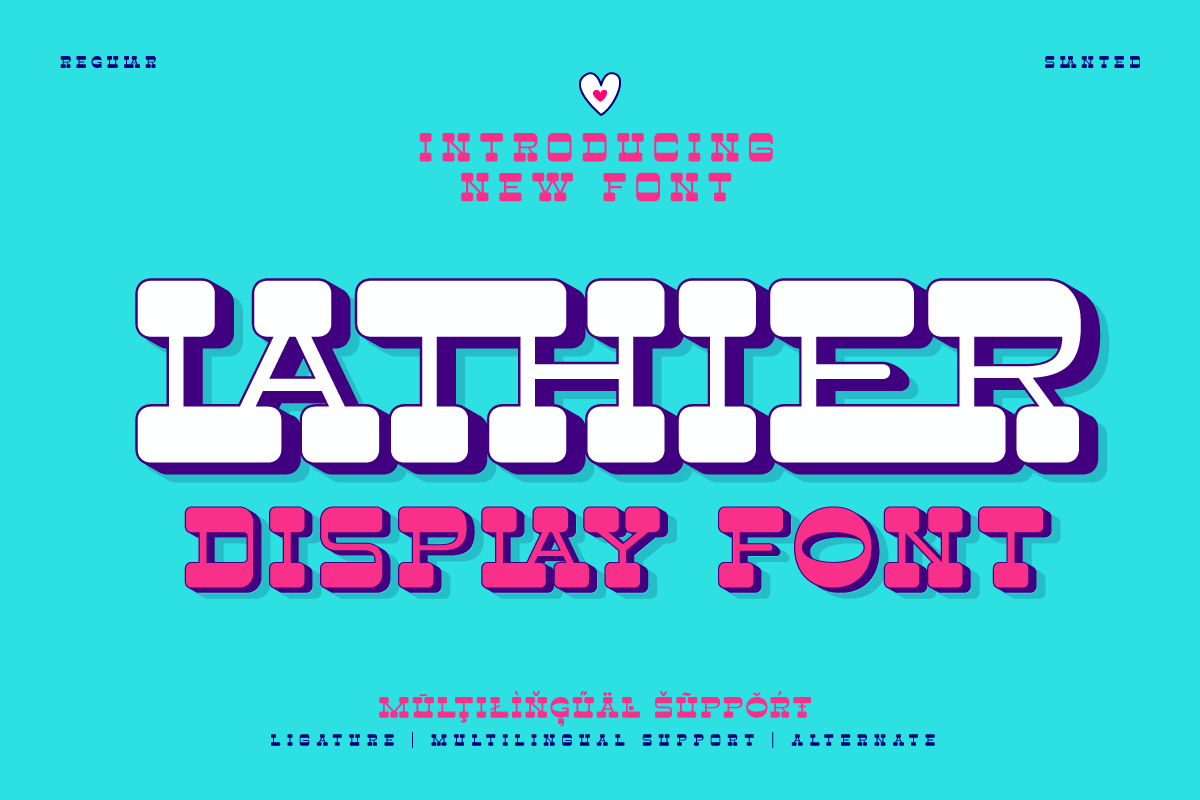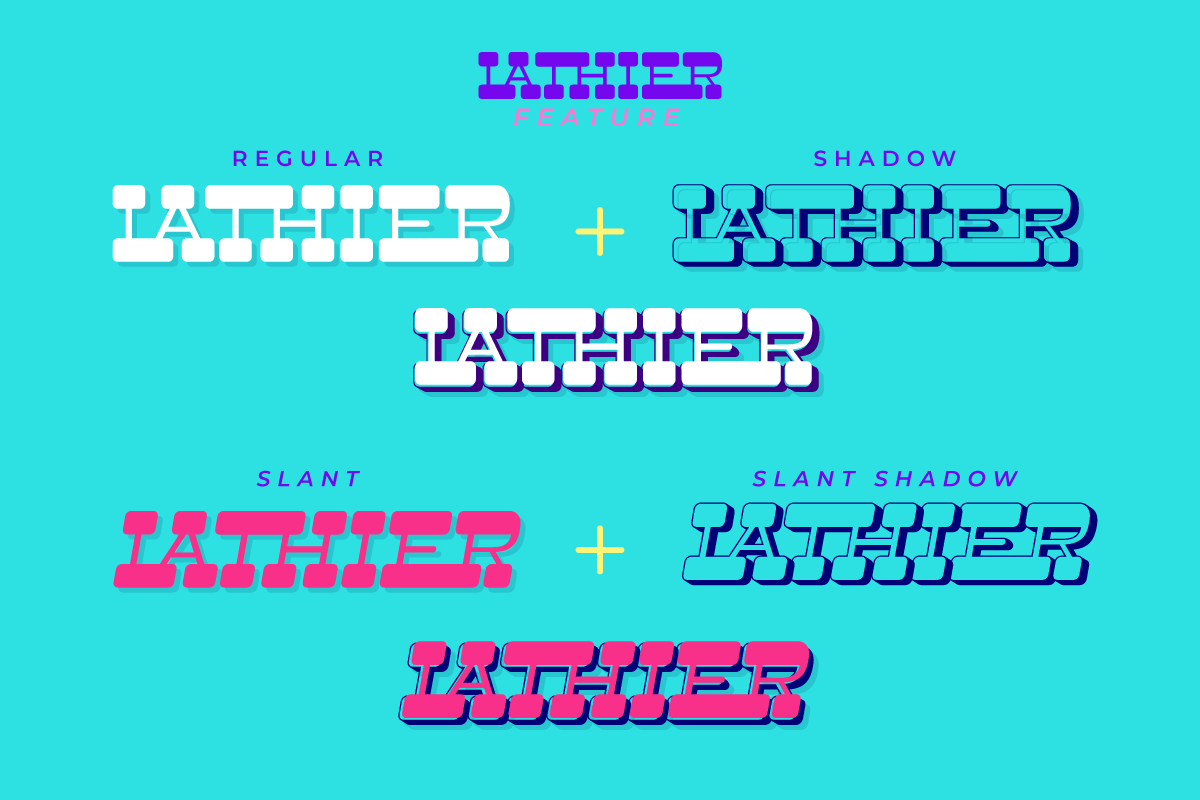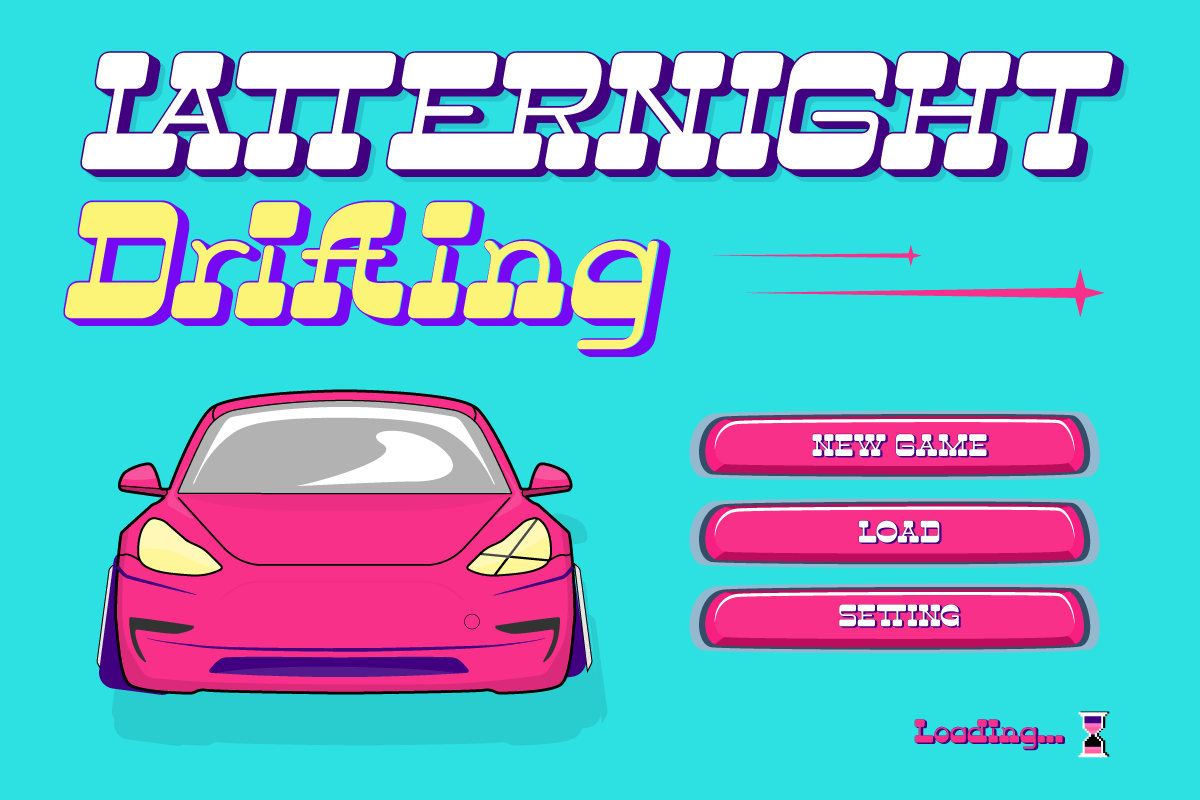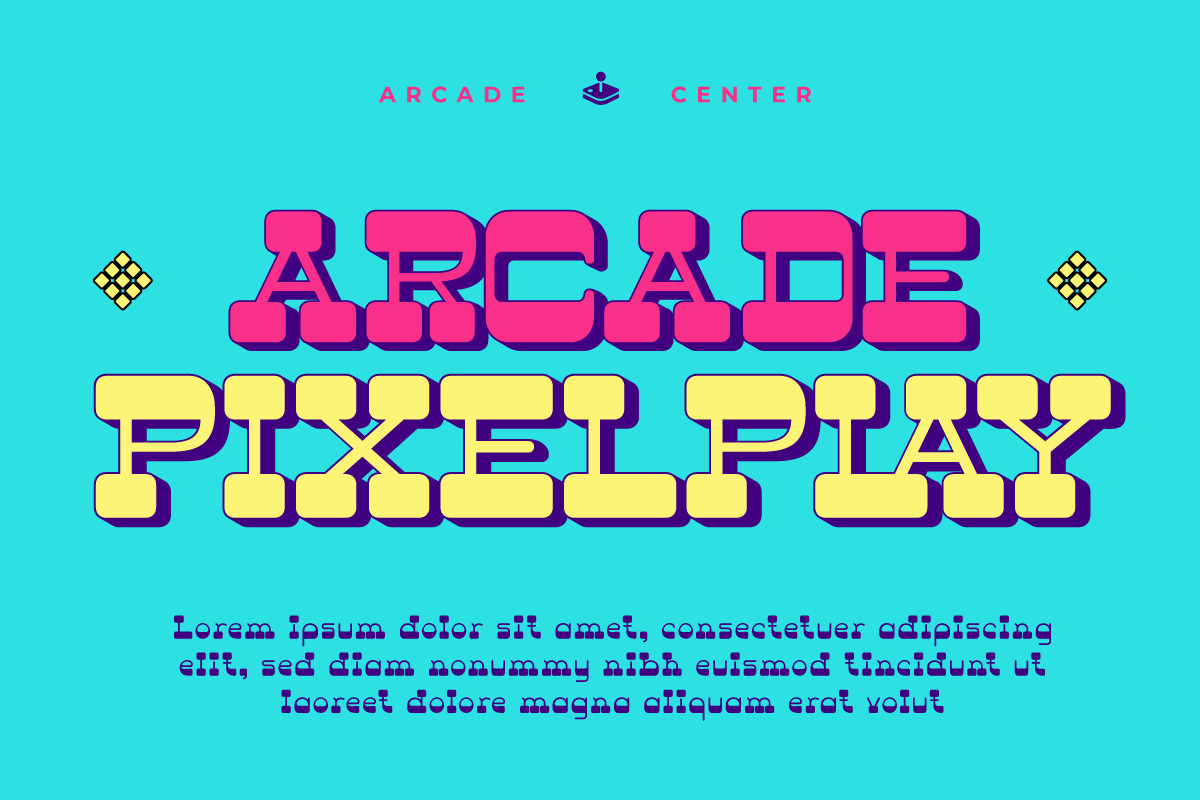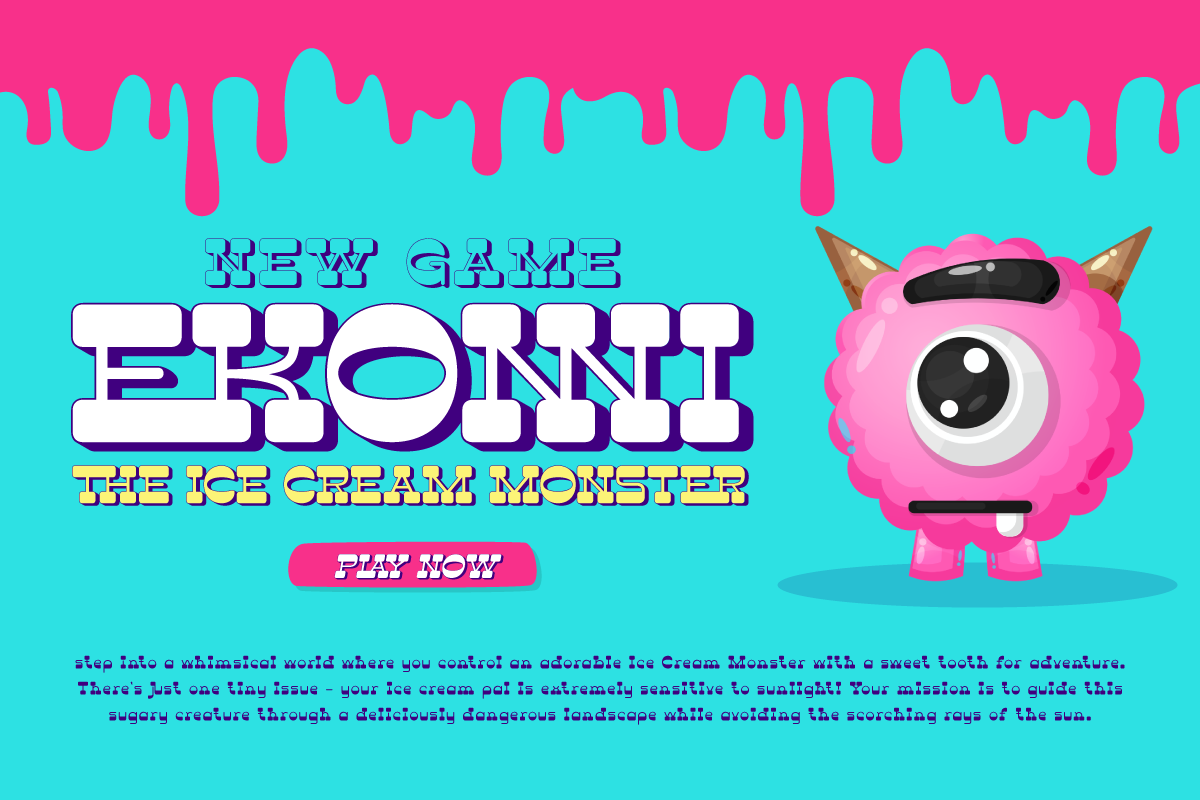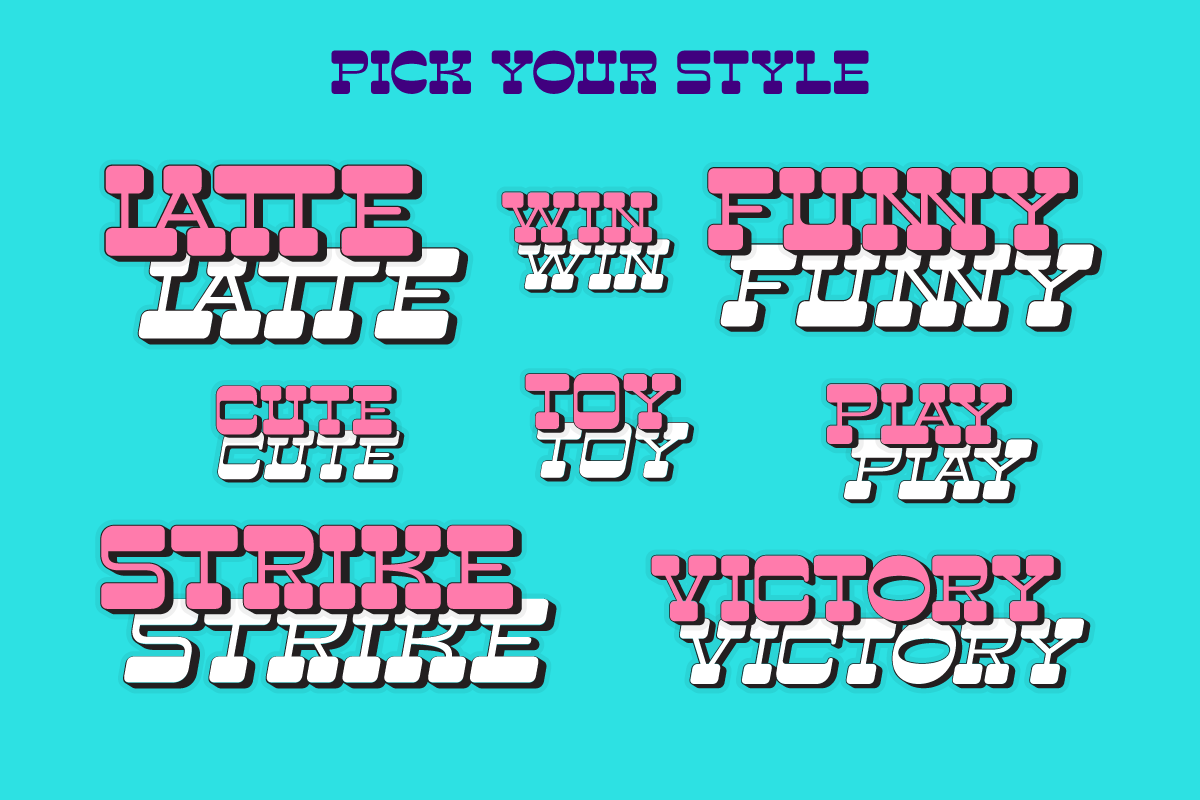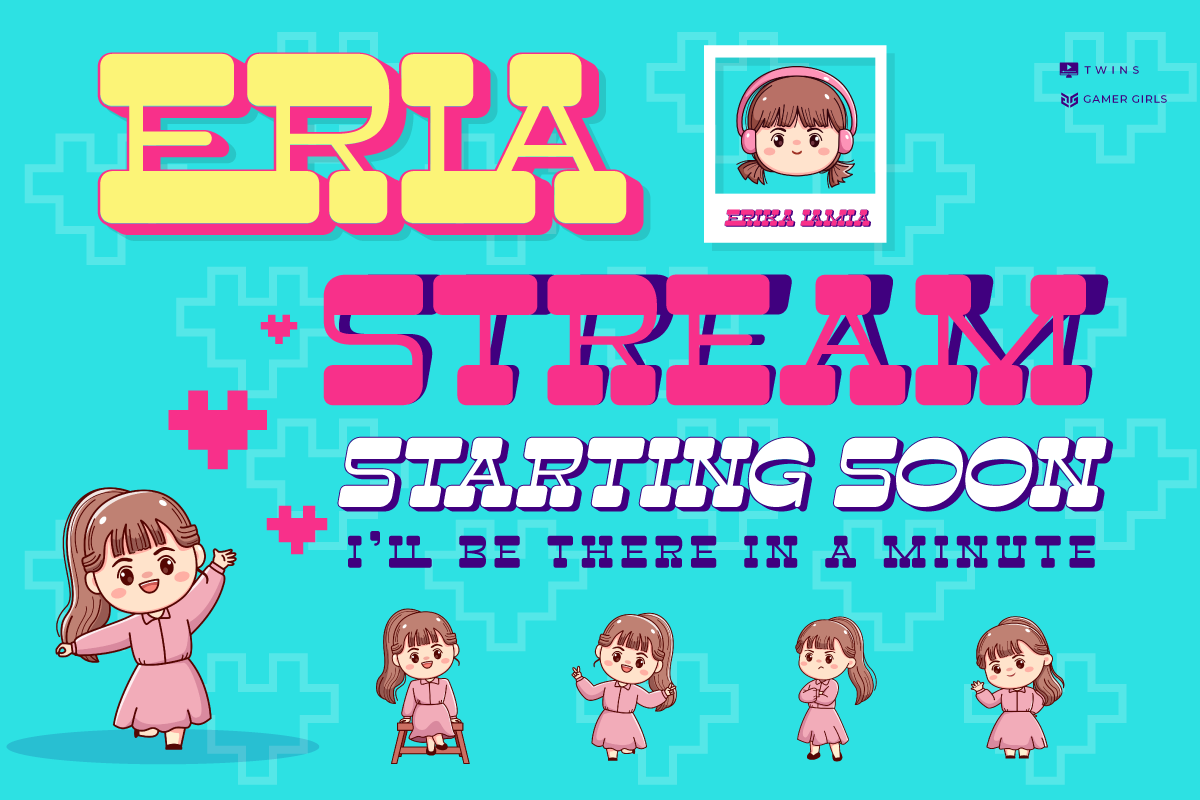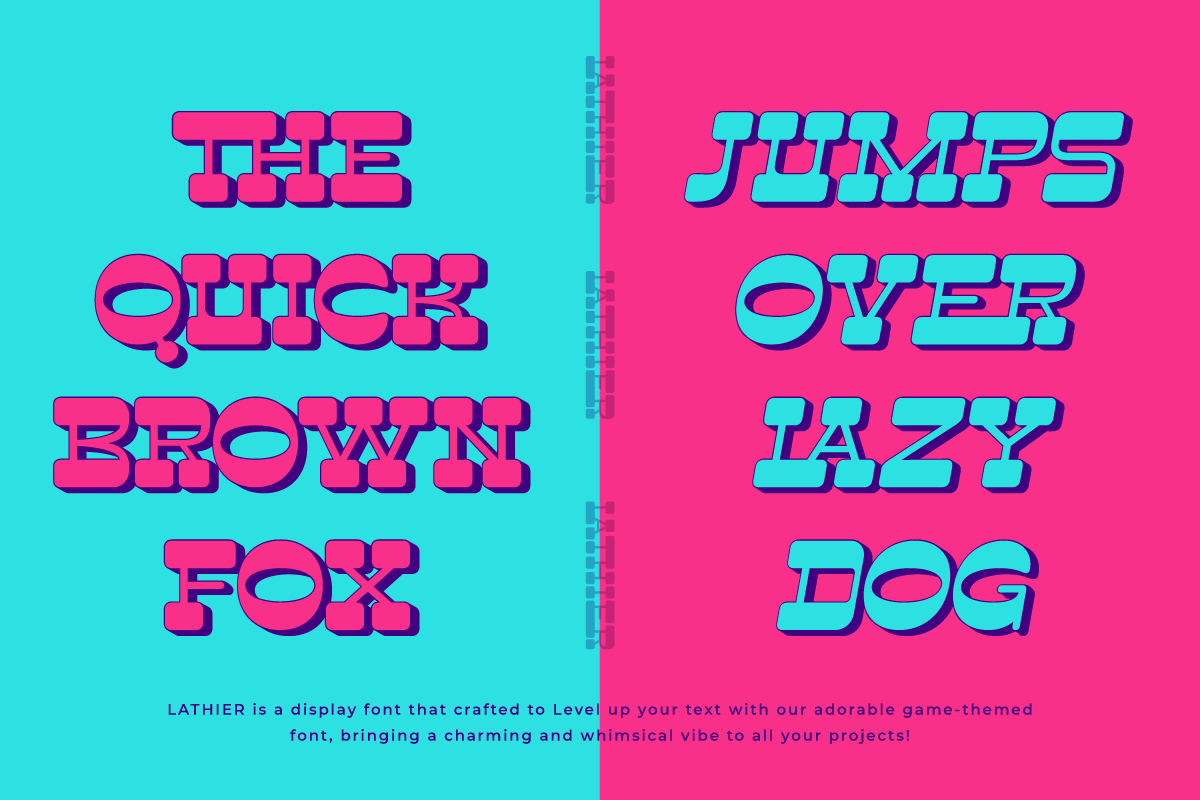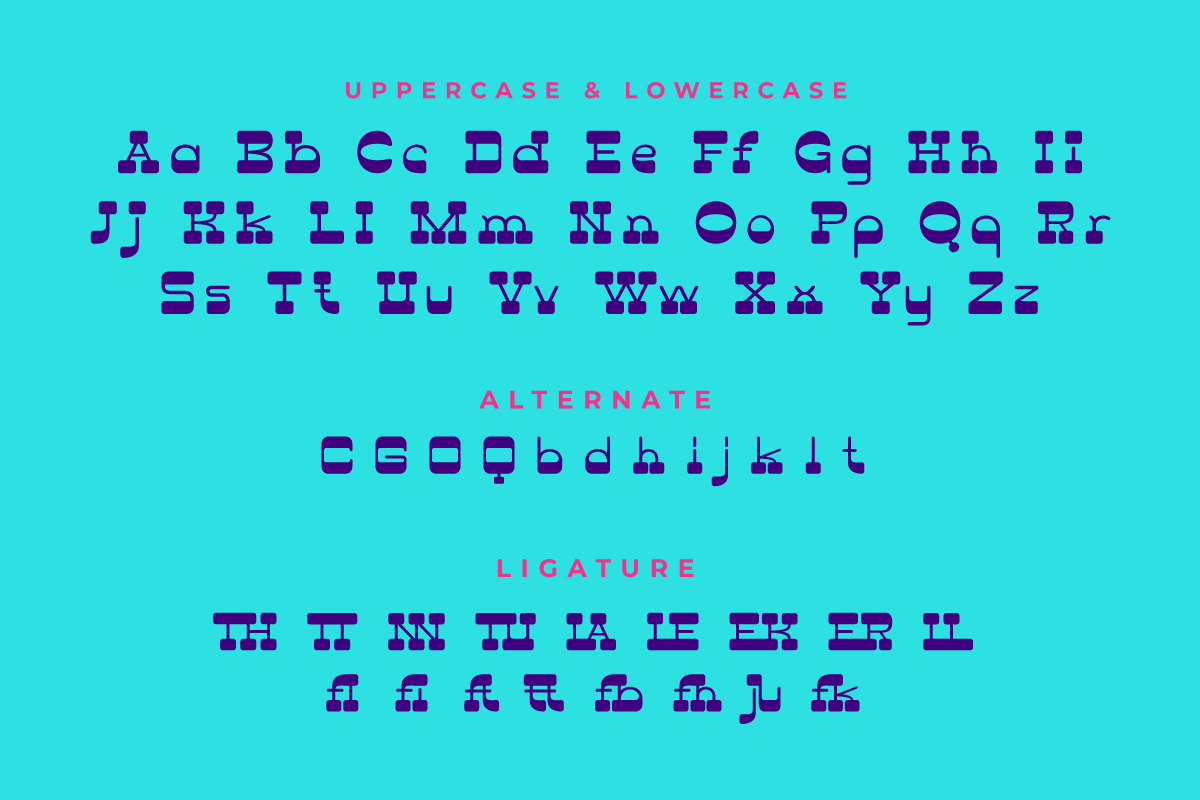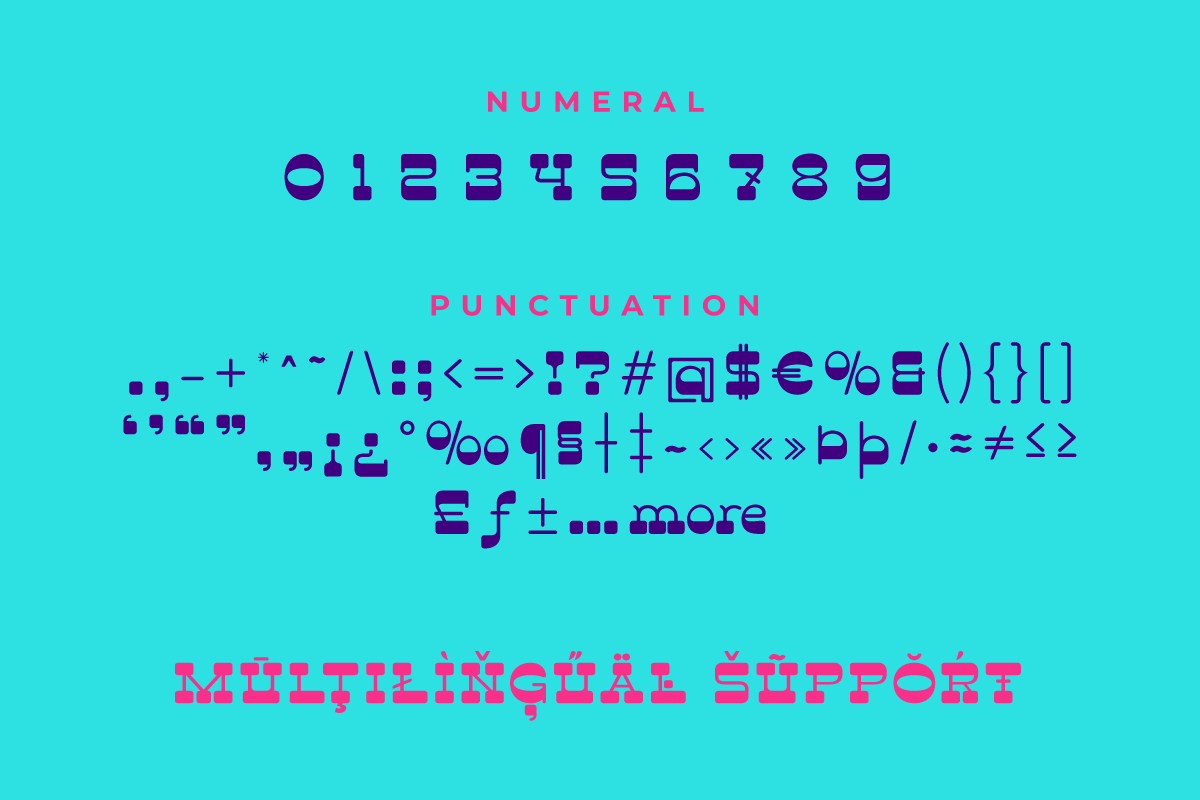
Lathier – Display Font
Slant
Shadow
Welcome to a world of design full of character and creativity! Lathier is a unique display font, combining bold and fat elements into an unforgettable letterform. If you’re looking for a truly powerful look for your various visual design projects, Lathier is the perfect choice.
What sets Lathier apart? The unique shape of the letters is strong and full of character. With regular, shadow, and slant families, as well as complete ligature and alternate features, Lathier gives you the flexibility to create typographic designs that are striking and different from the rest.
Lathier supports multiple languages. With Lathier fonts, your message will penetrate the world, without language barriers.